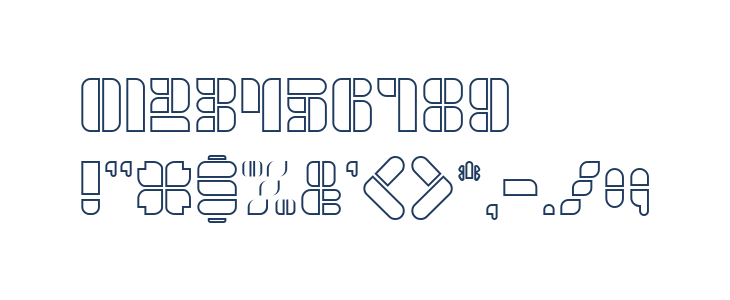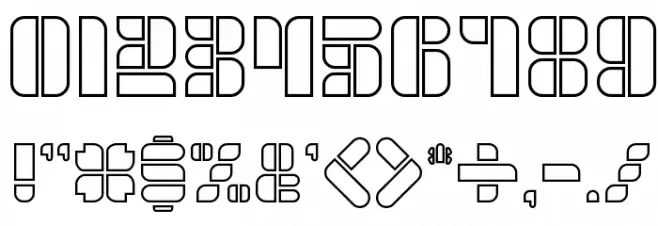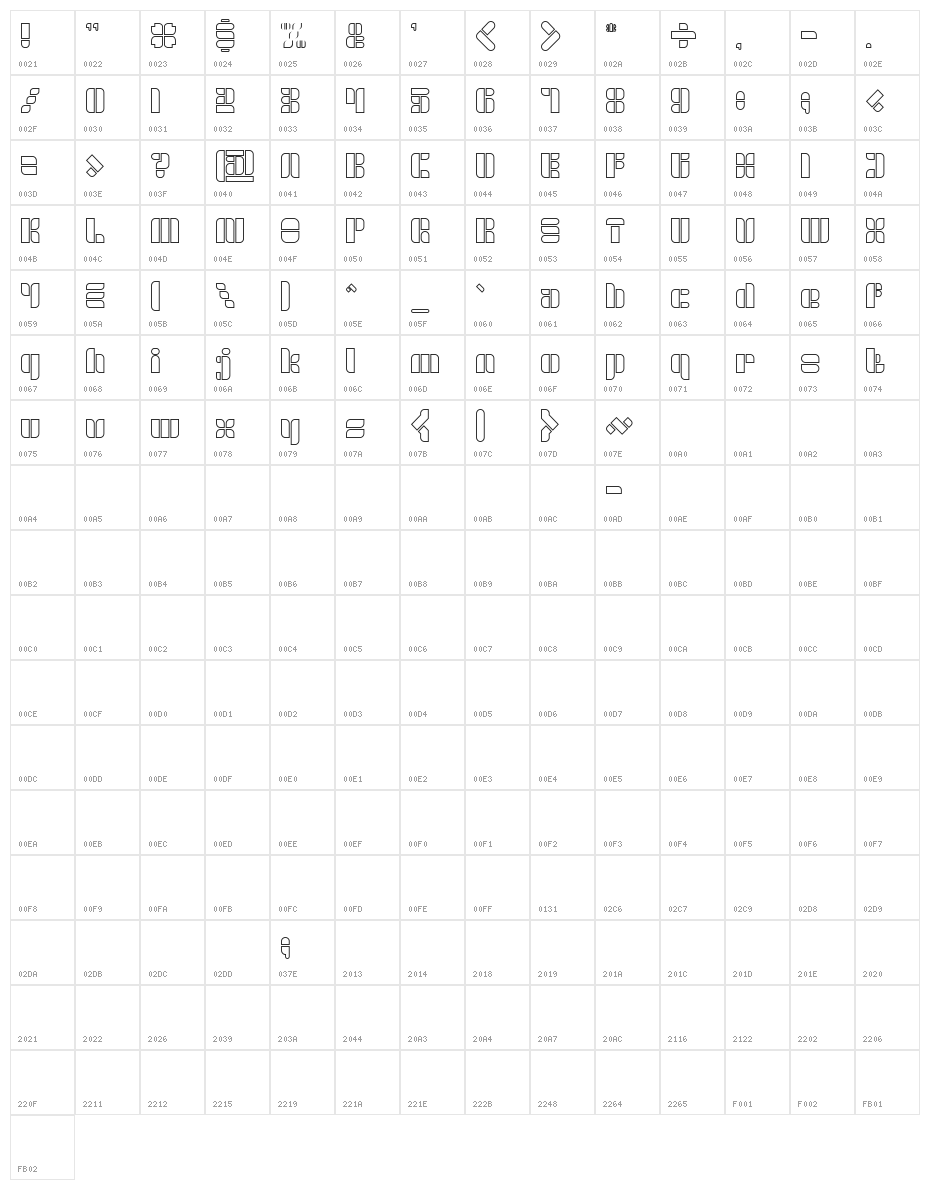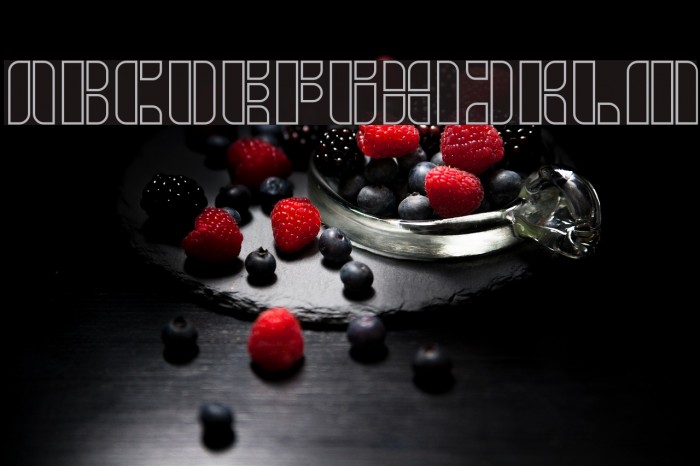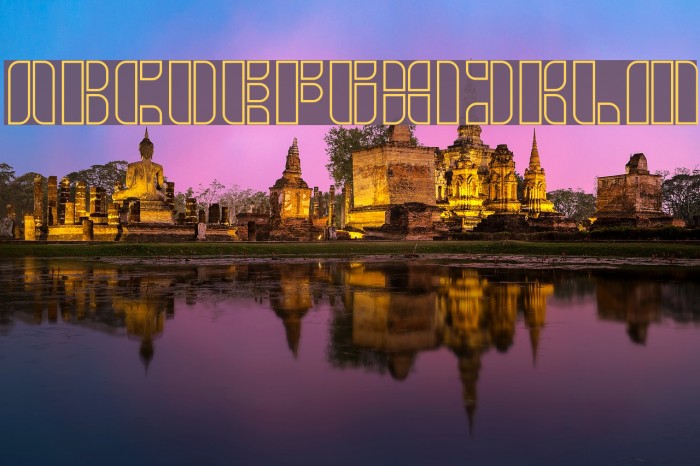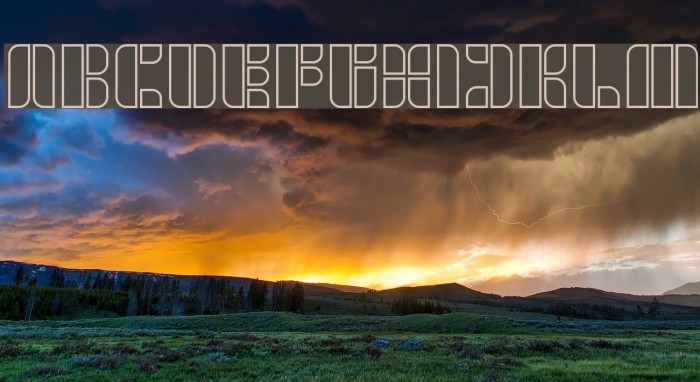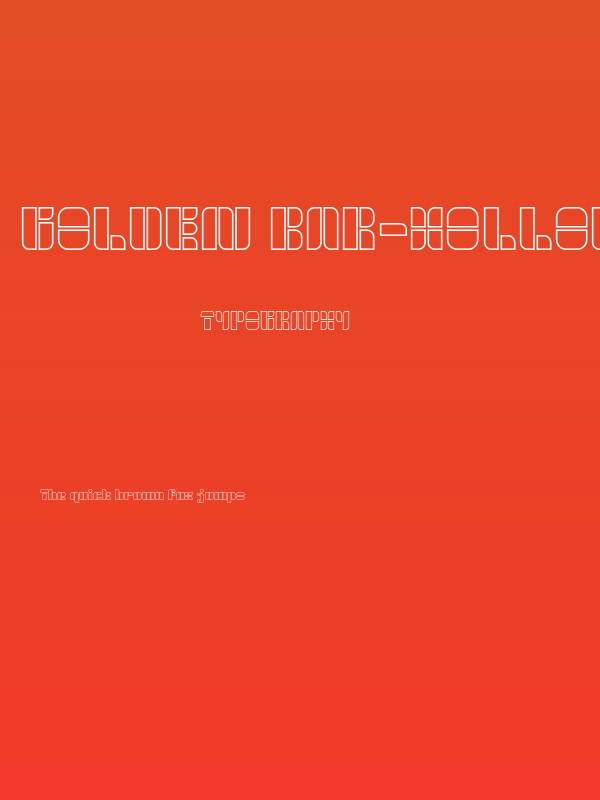
GOLDEN BAR-Hollow Font
GOLDEN BAR-Hollow Description
This font features a unique hollow design with geometric and modular characteristics. Each character is composed of bold, rounded outlines that create an open, airy feel. The letters are constructed with a consistent line weight, giving the font a cohesive and structured appearance. The style is modern and futuristic, with a playful yet sophisticated edge. The uppercase and lowercase letters maintain a uniform height, enhancing readability while adding a distinctive visual rhythm. The numerals and special characters follow the same design principles, ensuring a harmonious overall look.
| Proposed Projects | Ideal for branding, posters, and digital media where a contemporary and eye-catching design is desired. |